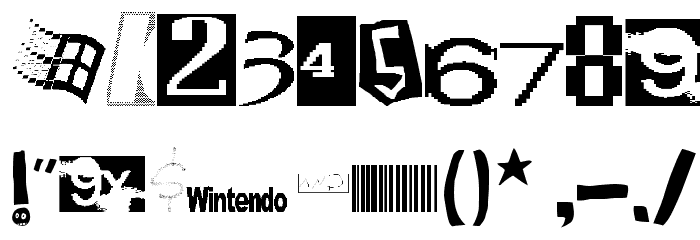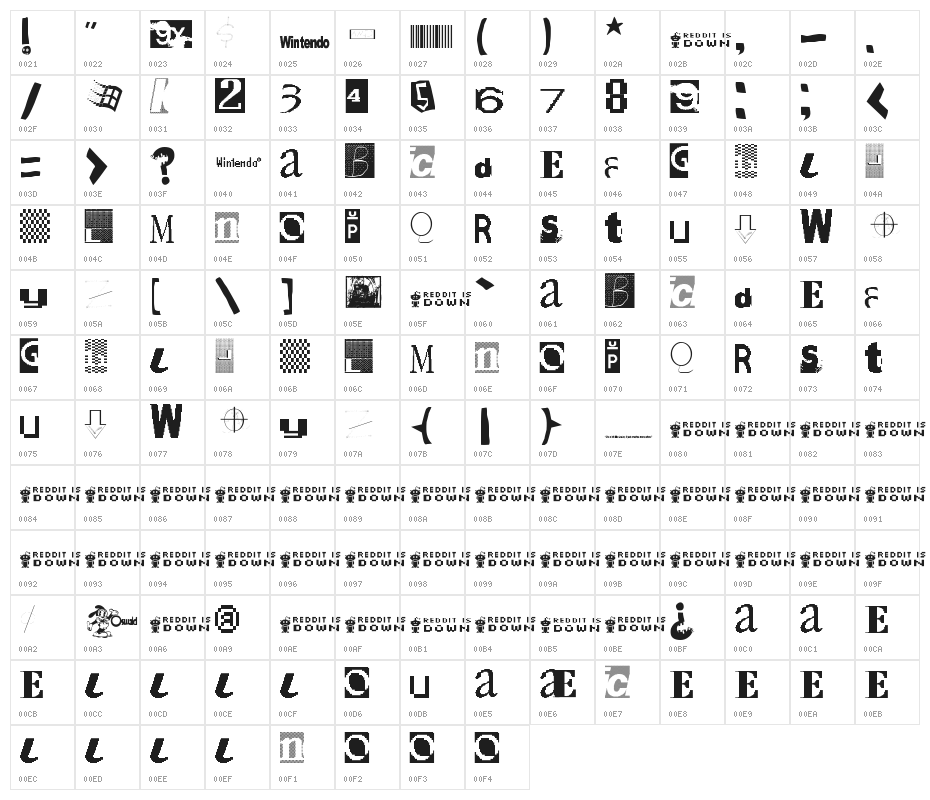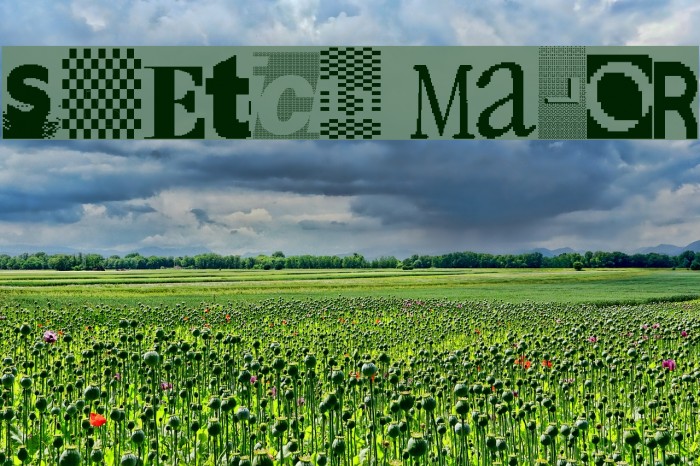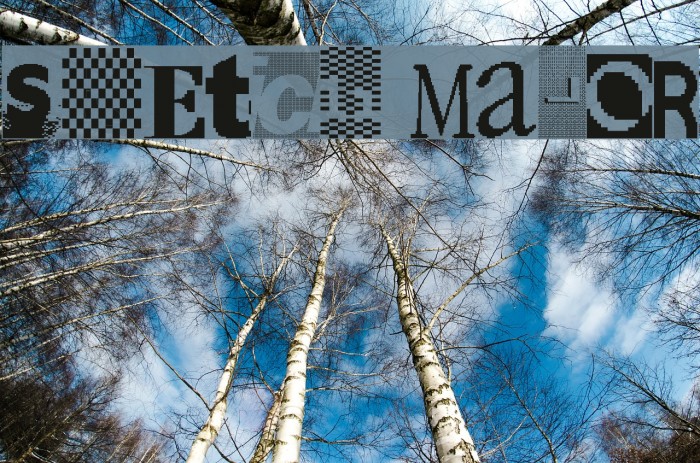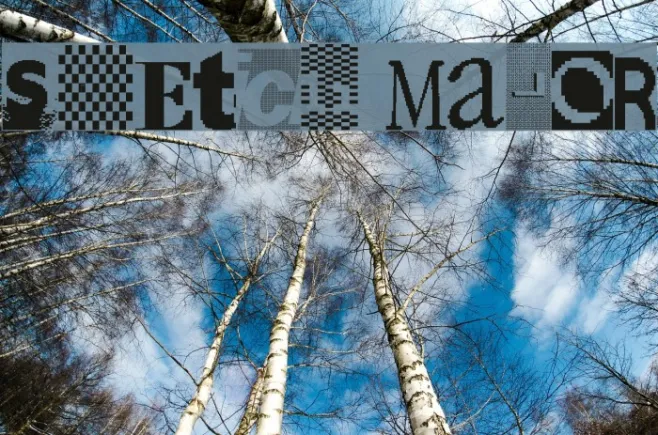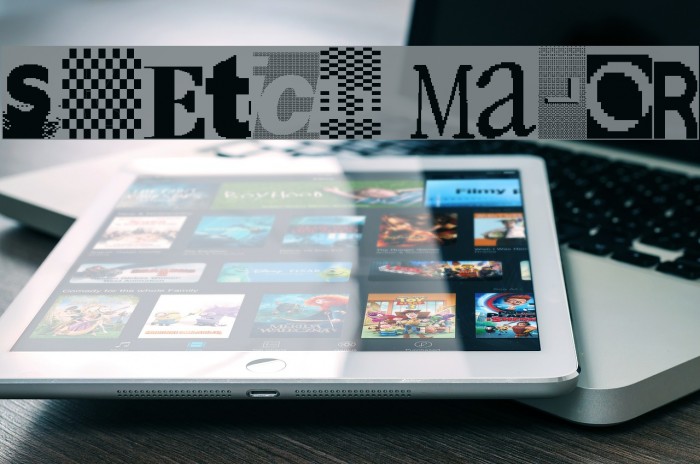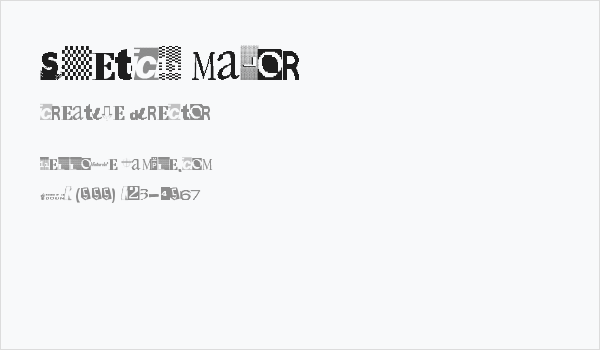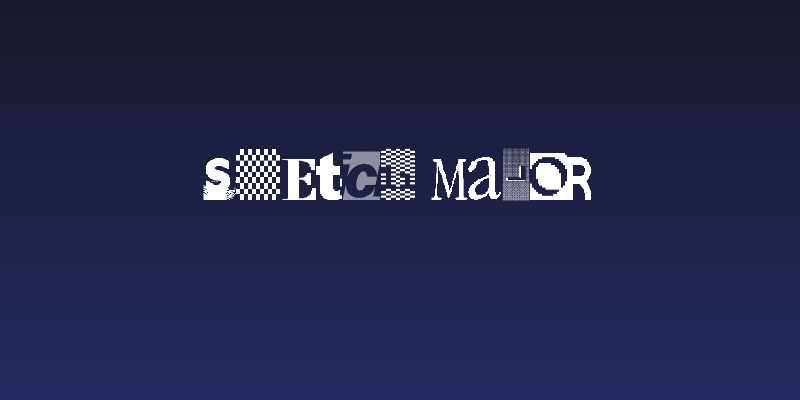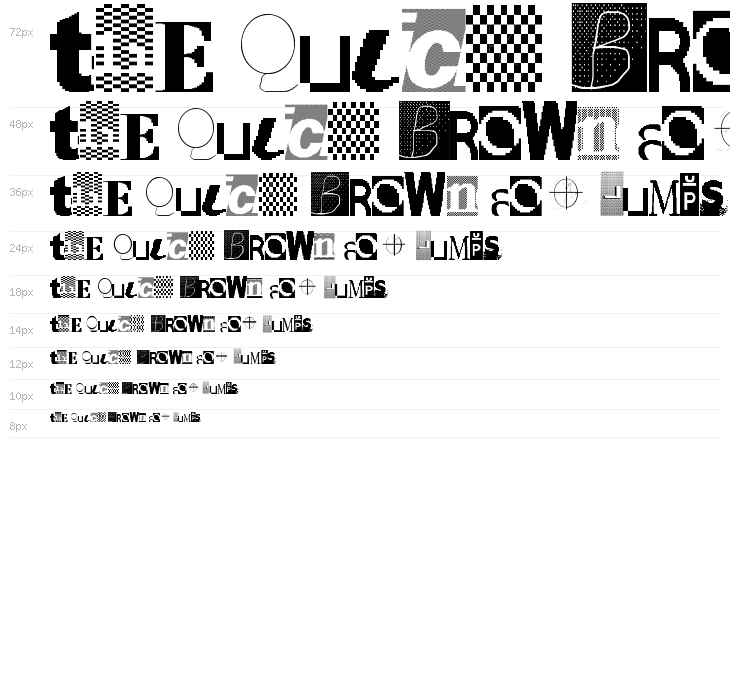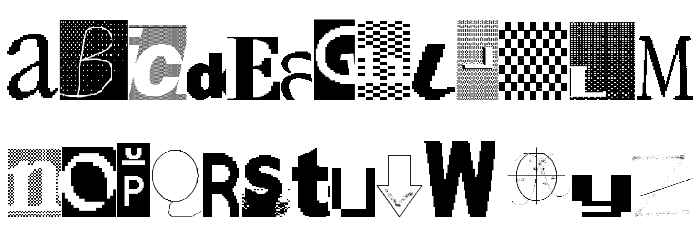
Sketch Major Font
Sketch Major Description
This font is a highly creative and eclectic display typeface, featuring a diverse range of styles and textures within each character. Each letter and number is uniquely designed with various patterns, such as stripes, dots, and geometric shapes, creating a visually striking and unconventional appearance. The font includes a mix of uppercase and lowercase letters, numbers, and special characters, each with its own distinct design. This typeface is ideal for projects that require a bold and artistic touch, offering a playful and dynamic aesthetic that stands out.
| Use Case | Logos, Posters, Artistic Projects |
| Proposed Projects | Ideal for artistic projects, posters, album covers, and any design requiring a bold, creative touch. |